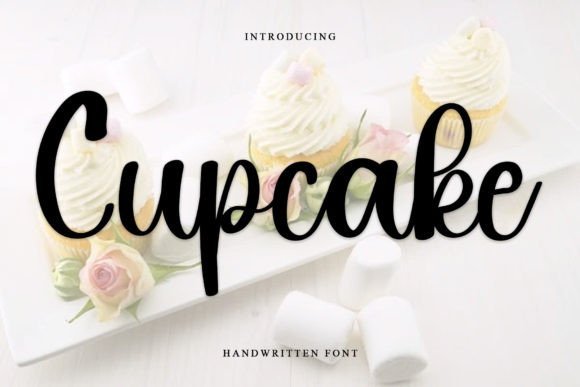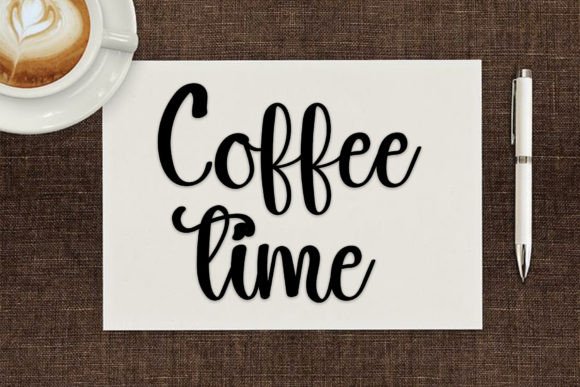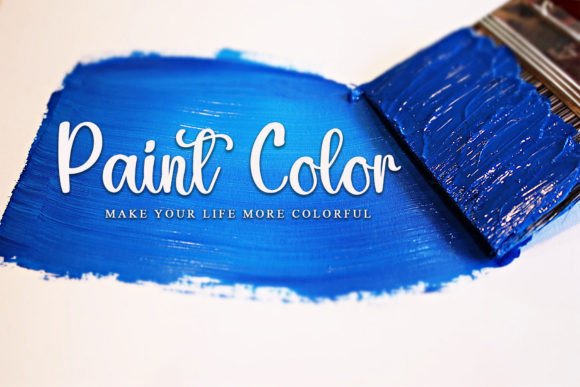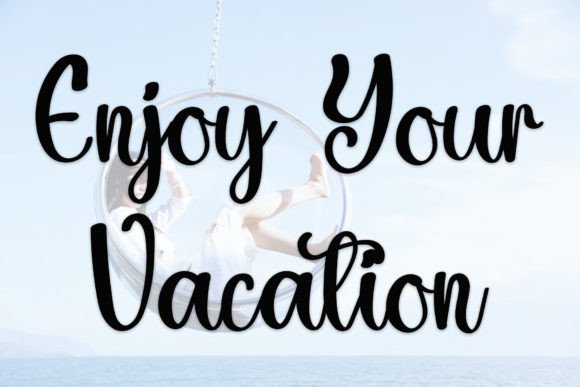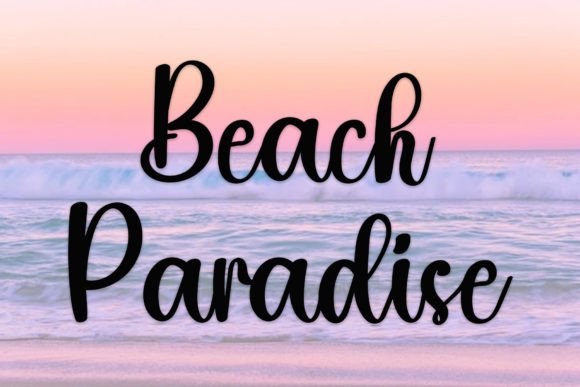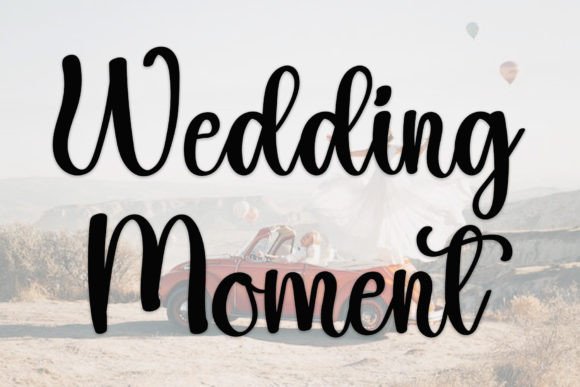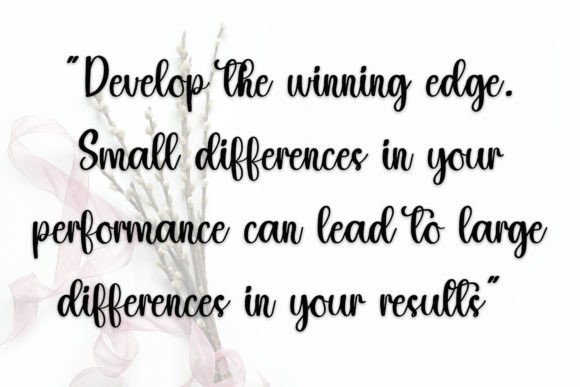
Celebrating the Cozy Charm of Fall with the Cupcake Font
As the leaves begin to change colors and the air grows crisp, I find myself reaching for the perfect font to capture the essence of the season. It’s that time of year when the world feels cozier, and the Cupcake Font comes to mind. This delightful typeface is a masterful blend of warm, earthy tones and elegant letterforms, perfectly evoking the feeling of curling up with a good book on a chilly autumn afternoon.
Whether you’re a designer looking to add a touch of whimsy to your seasonal projects or a crafty enthusiast seeking the perfect font for your fall-themed creations, the Cupcake Font is a valuable addition to your toolkit. Its charm and coziness make it an ideal choice for autumn-themed branding, greeting cards, and more.
Cupcake Font Key Features
- Font Style: A playful, cursive font with a whimsical feel, perfect for adding a touch of sweetness to your designs.
- Character Set: Includes a comprehensive set of characters, including uppercase and lowercase letters, numbers, and punctuation marks.
- Size and Resolution: Designed to be highly legible at font sizes ranging from 12 to 48 points, with optimal results at 300 DPI (dots per inch).
- Unique Characteristics: Features a distinctive, hand-drawn feel with subtle imperfections, giving it a unique and charming personality.
Cupcake Font Review
Overall, I think Cupcake Font is a lovely addition to any design project that needs a playful, whimsical feel. ✨ Here are some of its strengths:
- Cute and charming design: The Cupcake Font is perfect for baking-related businesses, kids’ products, or any other project that needs a touch of sweetness.
- Good legibility: The font is clear and easy to read, even at smaller sizes.
- High-quality: The font files are well-made and don’t show any noticeable flaws.
However, like any font, Cupcake Font has its limitations. ⚠️ Here are some things to keep in mind:
- Not suitable for formal projects: The font’s playful nature makes it less suitable for professional or formal projects, such as business reports or technical documents.
Overall, I think Cupcake Font is a delightful choice for designers who want to add a touch of personality to their projects. With its cute design, good legibility, and high-quality files, it’s a solid addition to any design toolkit.
Getting the Most Out of Cupcake Font
For best results, use Cupcake Font in designs that require a playful and whimsical touch. It’s perfect for:
1. Bakery and dessert branding.
2. Children’s party invitations.
3. Social media graphics.
Cupcake Font is commonly used in:
1. Food and beverage branding.
2. Children’s products and services.
3. Whimsical and playful designs.
Alternatives to Cupcake Font for Designers
Great Vibes is a modern, cursive script font that is perfect for adding a touch of elegance to your designs. It is ideal for use in invitations, wedding designs, and other creative projects where a flowing, handwritten look is desired.
Compared to Cupcake Font, Great Vibes has a more refined and sophisticated look, making it a better choice for high-end designs. While Cupcake Font is more playful and whimsical, Great Vibes exudes a sense of sophistication and luxury.
Alex Brush is a handwritten script font that is reminiscent of traditional calligraphy. It is perfect for use in designs where a personal, handwritten touch is desired, such as in invitations, menus, and other creative projects.
Compared to Cupcake Font, Alex Brush has a more rustic and earthy feel, making it a better choice for designs that require a more natural and organic look. While Cupcake Font is more playful and modern, Alex Brush has a timeless, classic quality.